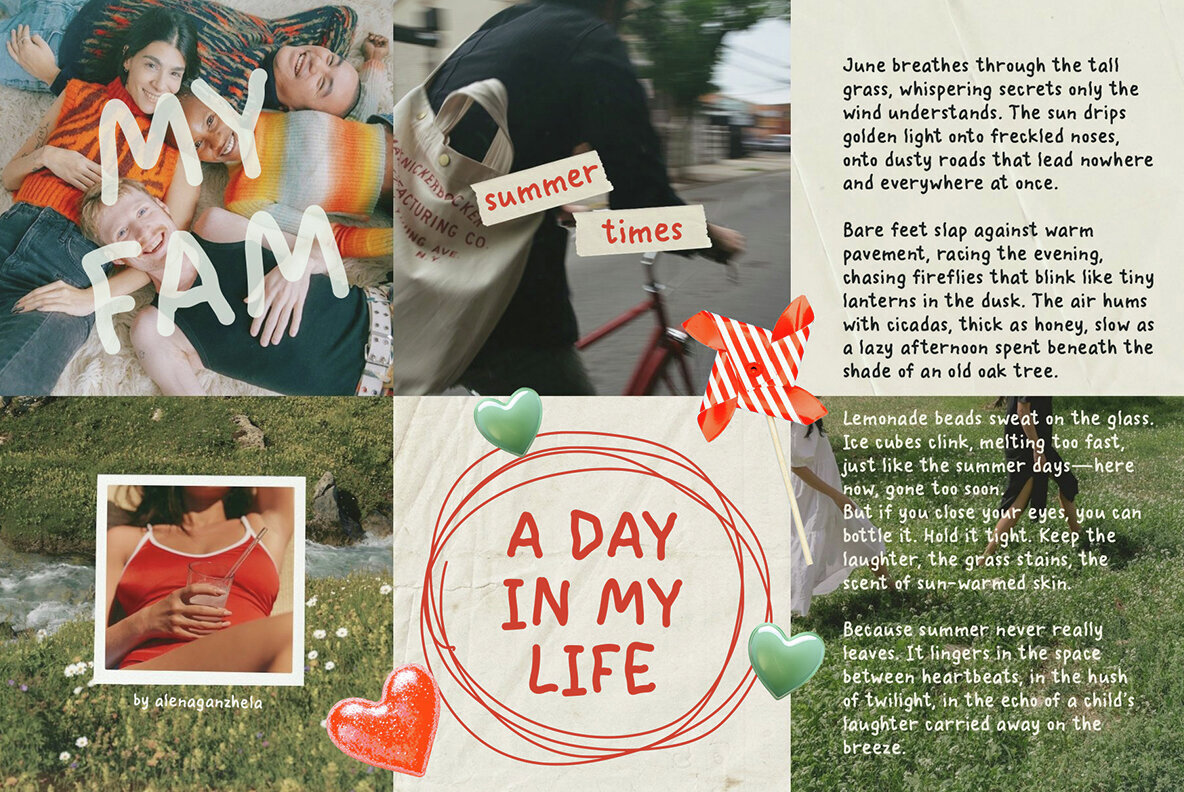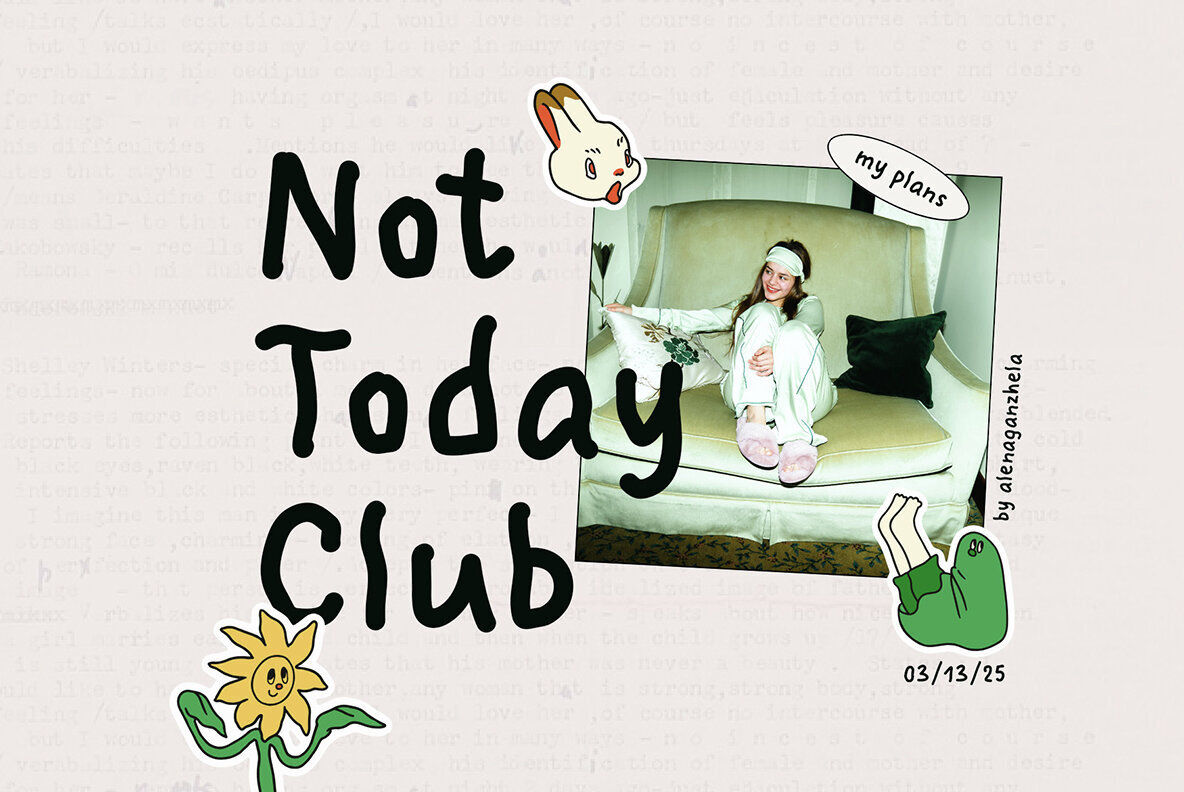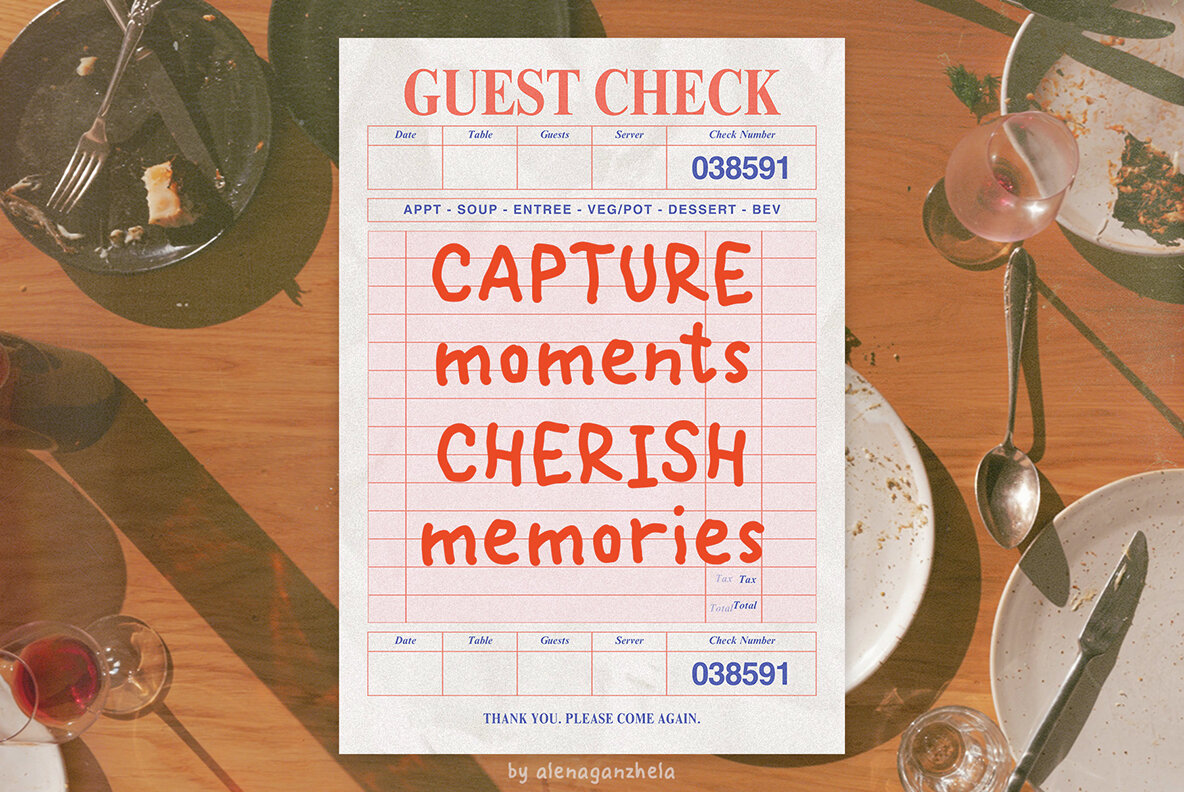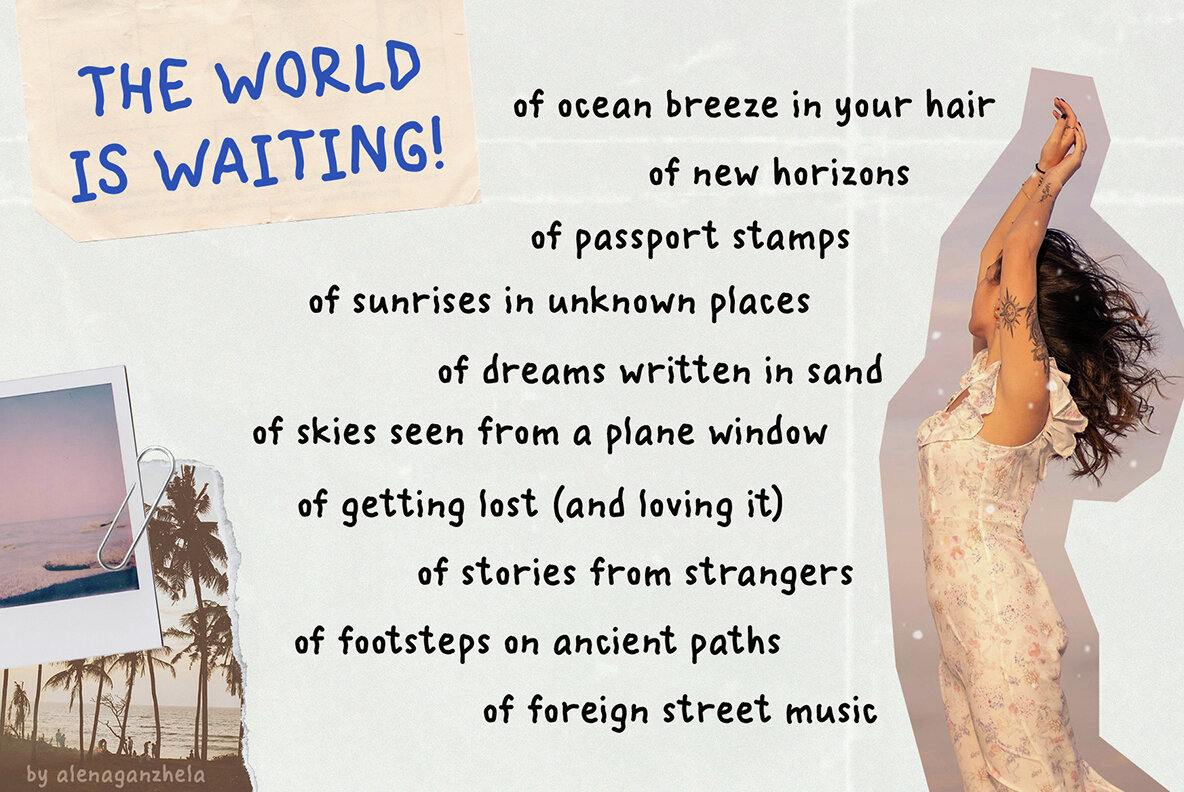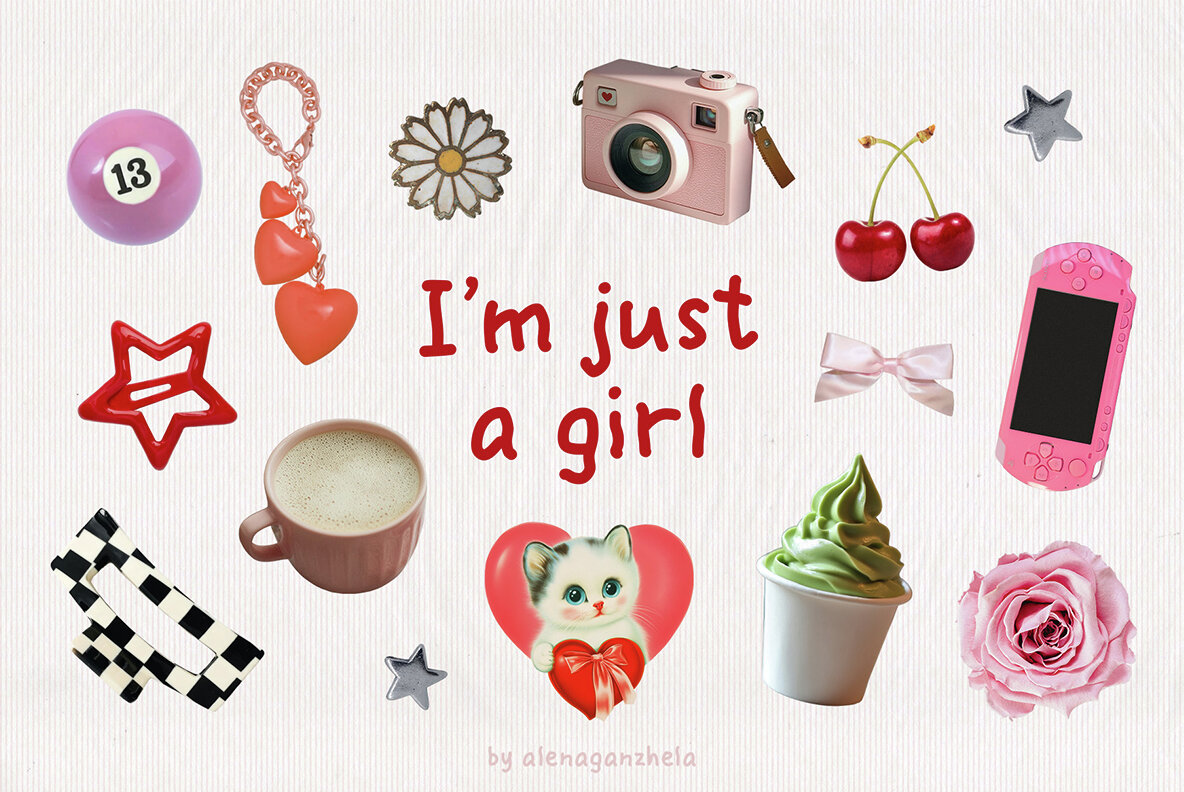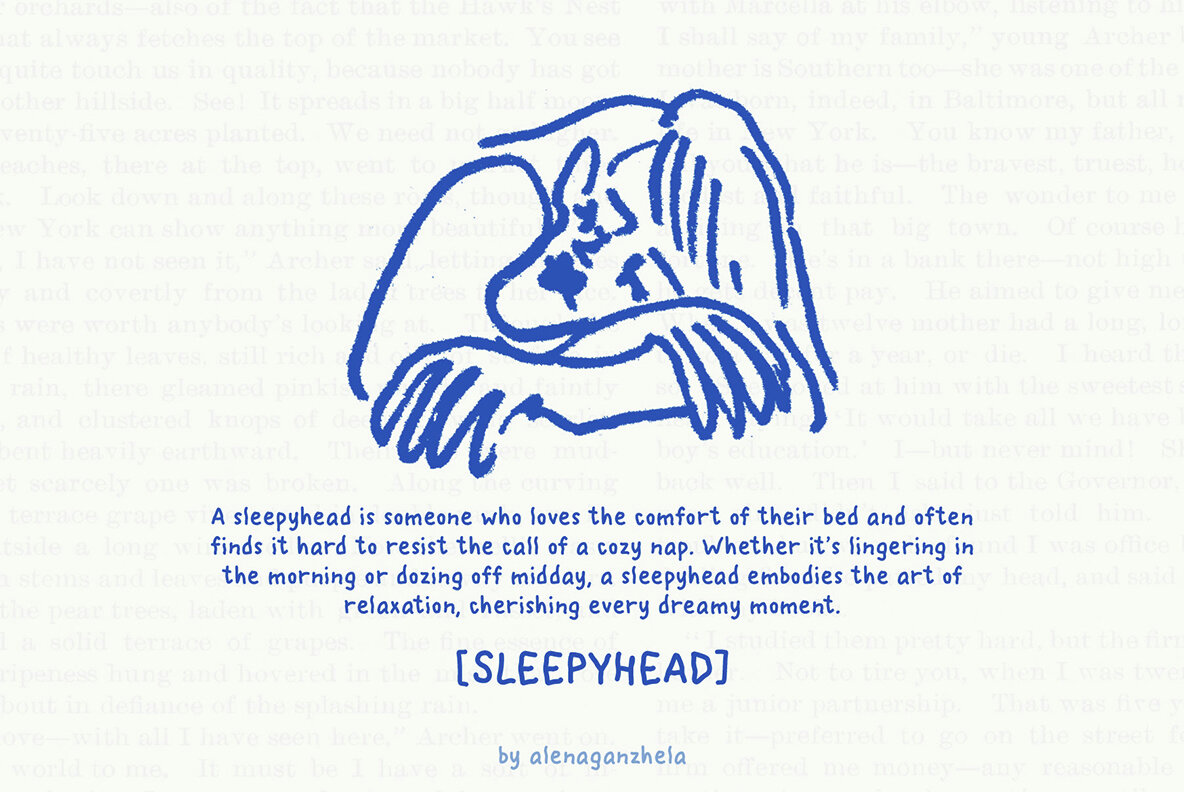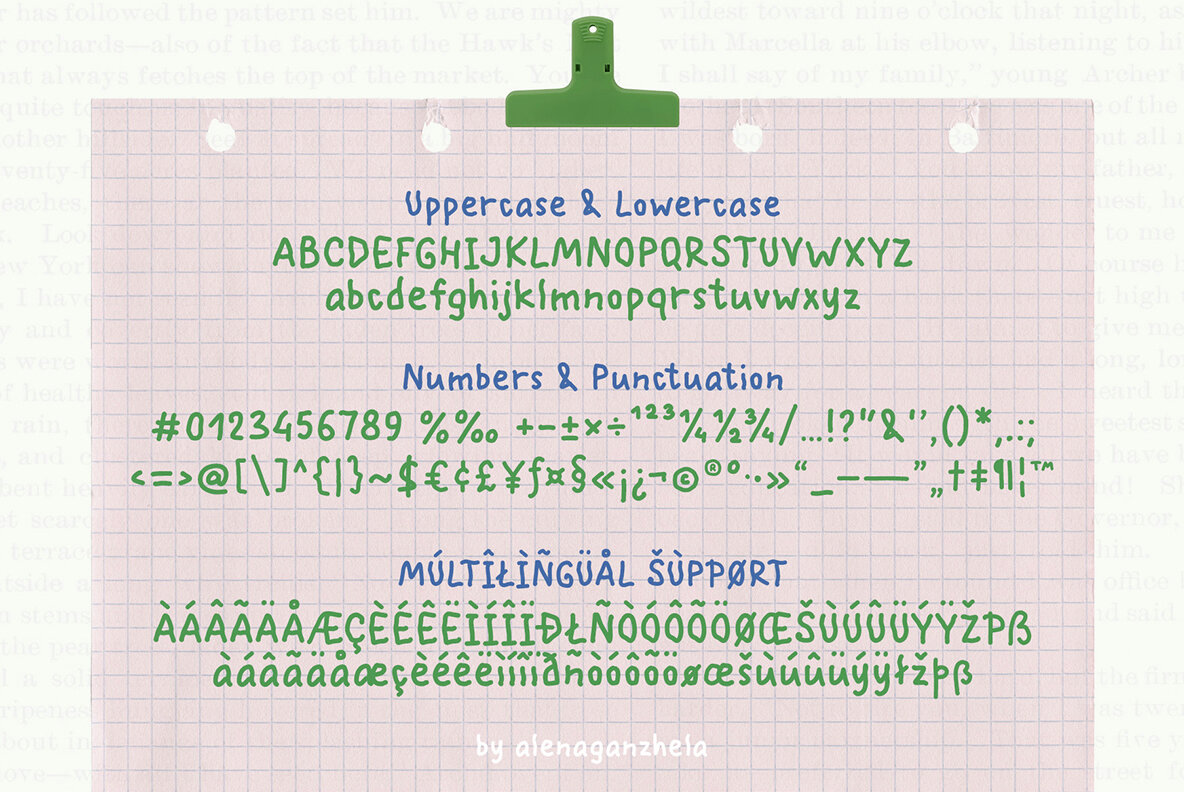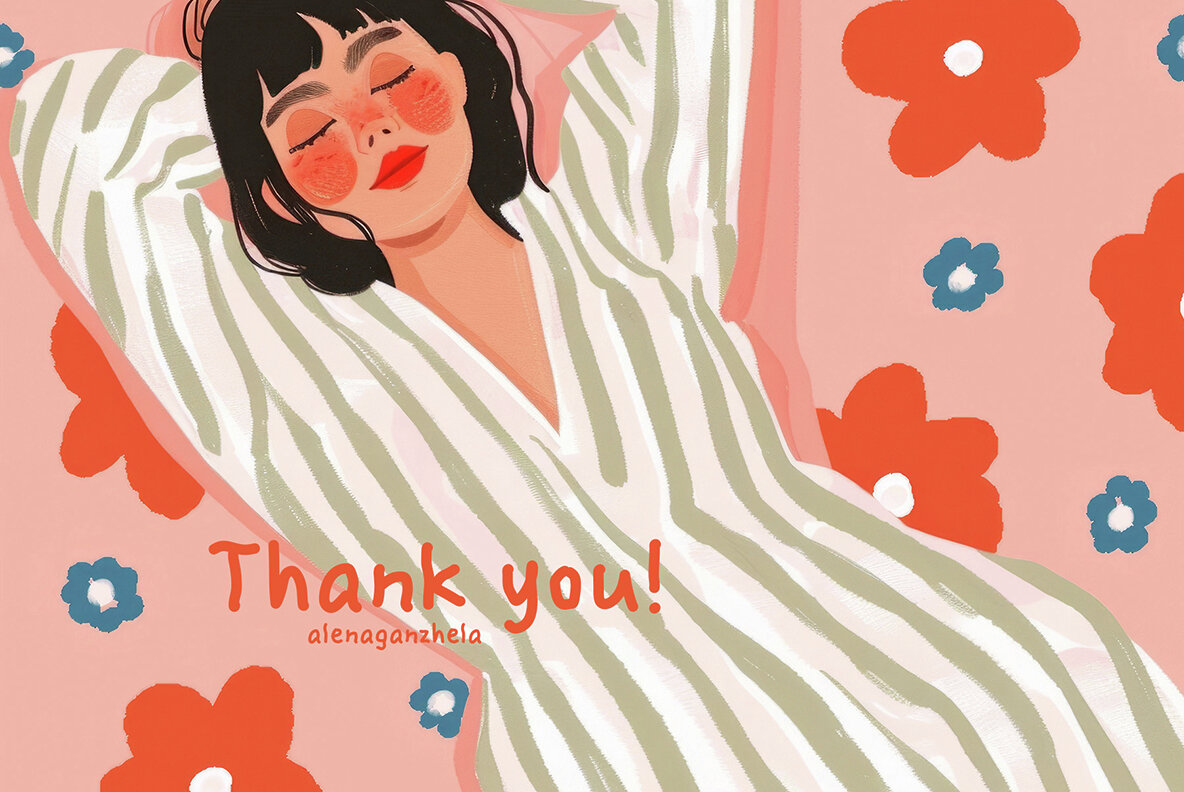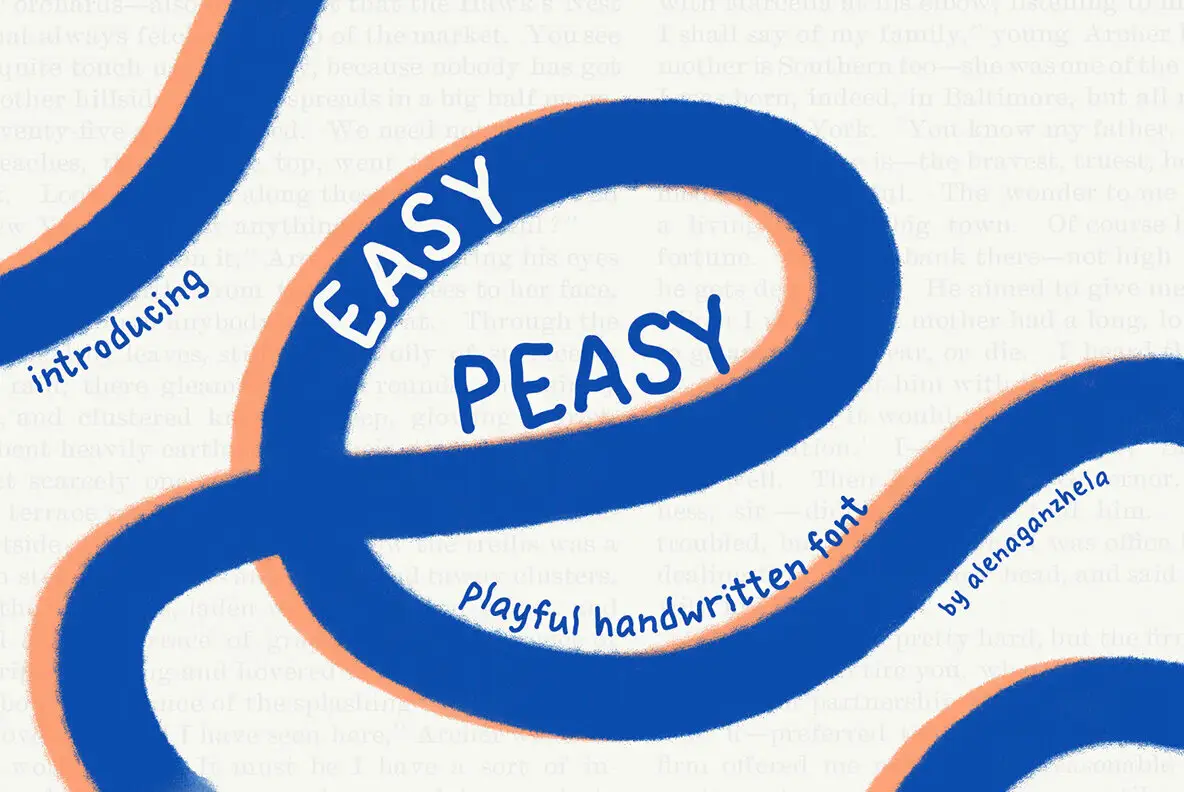
Easy Peasy Font
Easy Peasy Regular
Easy Peasy offers a playful vibe with its charming handwritten style, ideal for infusing any project with warmth and cheer. Its casual letterforms and natural flow suit a diverse range of designs, from branding to greeting cards, children's books to packaging. Modern posters, wall art, wedding invitations, logos, and stationery all benefit from its friendly touch. This font also shines in social media posts, blogs, decorative designs, and beyond. Whether you're crafting a cozy blog, an eye-catching quote, or a creative journal, Easy Peasy adds a personal, cheerful feel to your work. Plus, enjoy the added versatility of multilingual support.Easy Peasy Handwritten Font